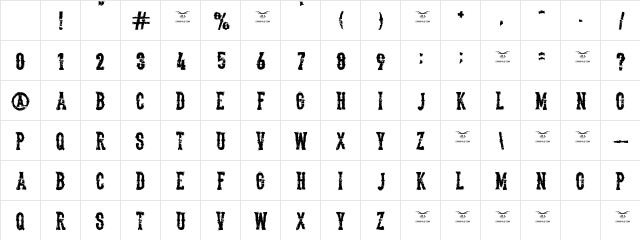
Complete The Deadliest Saloon Regular glyph index. Displaying only characters natively supported by The Deadliest Saloon Regular font.
The Deadliest Saloon echoes the hand-painted signage and woodblock typography of the American frontier, with a warm, rugged personality.
Font Pairing: Combine The Deadliest Saloon with a simple slab or neutral sans - period-accurate companions reinforce the vintage feel without competing for attention.
Pro Tip: Use The Deadliest Saloon for short, impactful bursts of text - it shines in poster headlines and product names rather than extended copy.